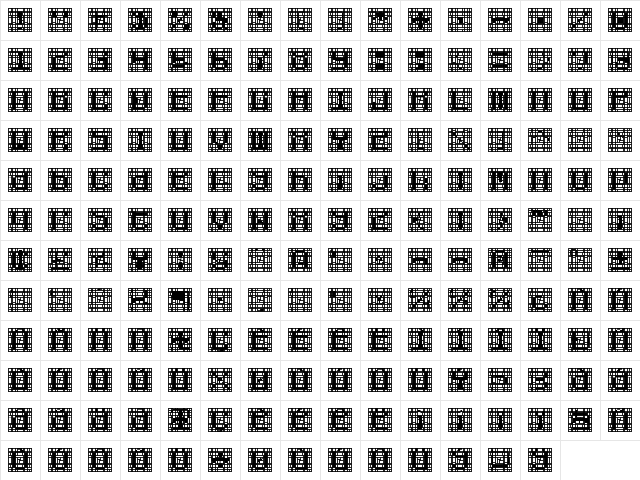
Cybernaut Regular
Design Context for Cybernaut Typeface
Cybernaut channels digital-age aesthetics through its sharp, structured letterforms — ideal for brands that want to signal innovation.
Pro Tip: Try Cybernaut with generous letter-spacing in UI labels and navigation — the geometric forms benefit from room to breathe.